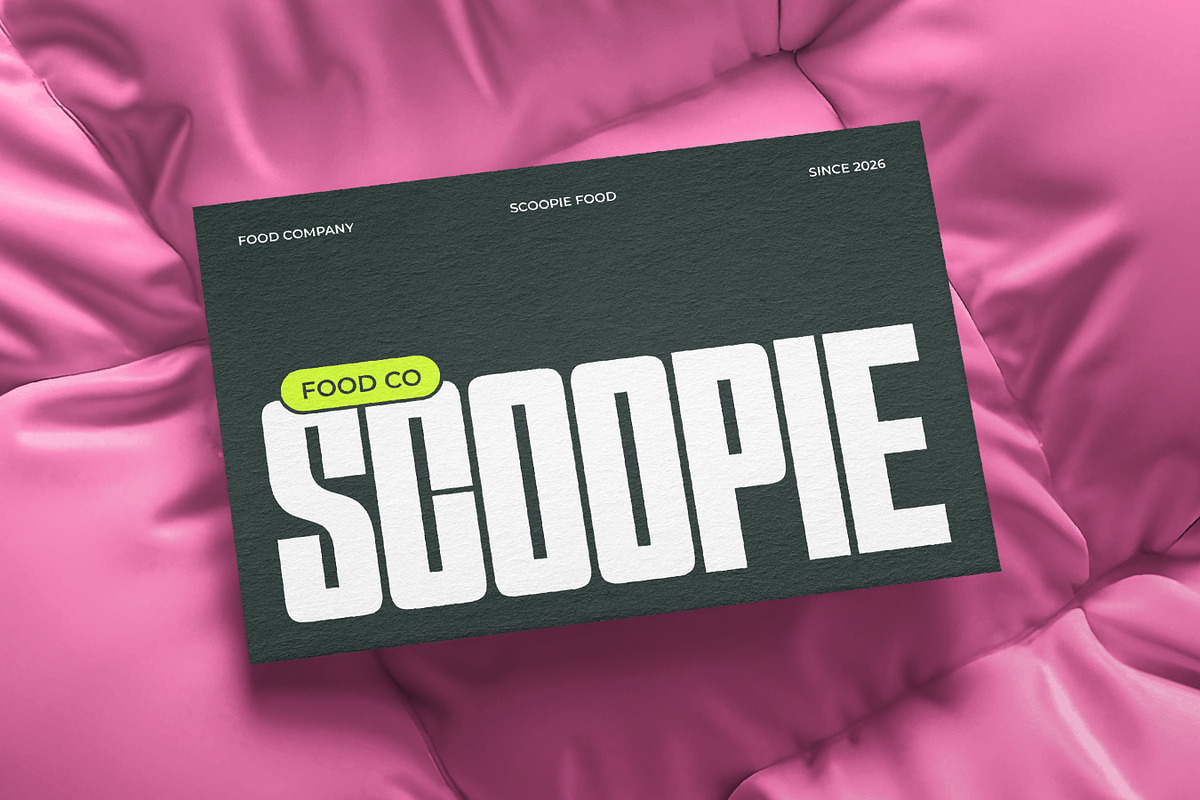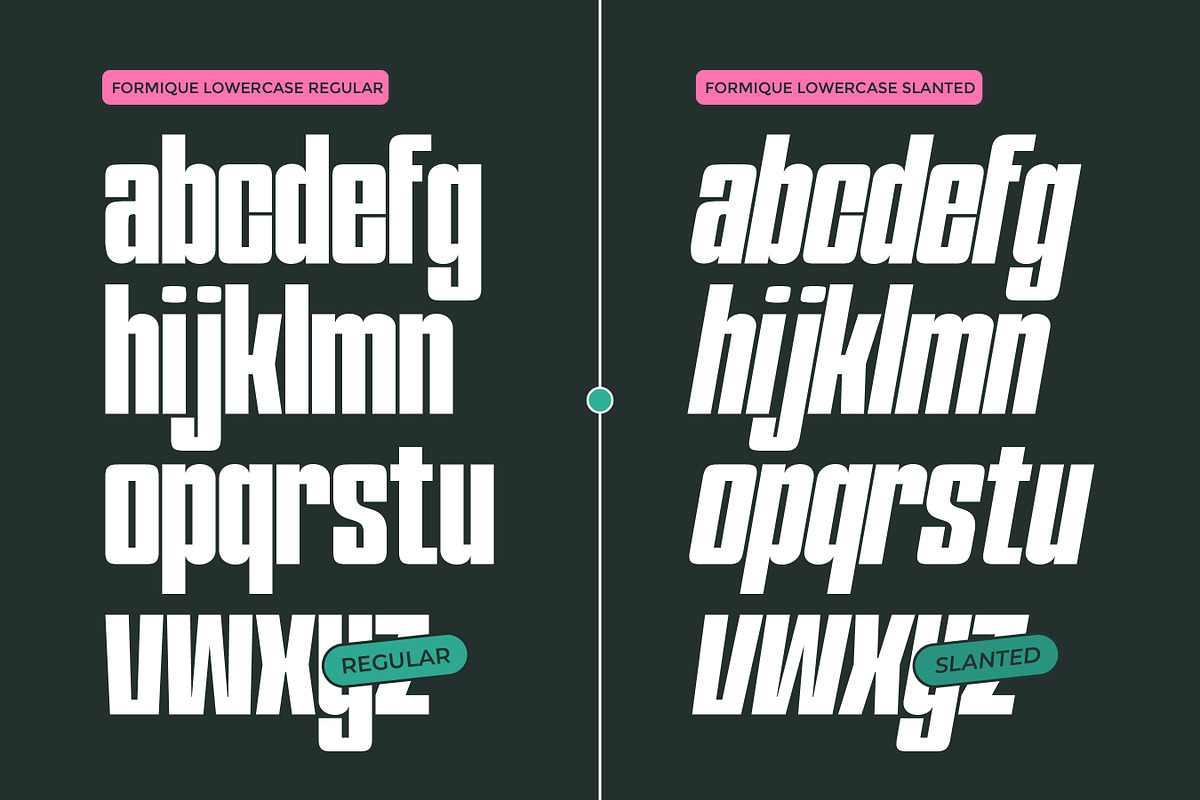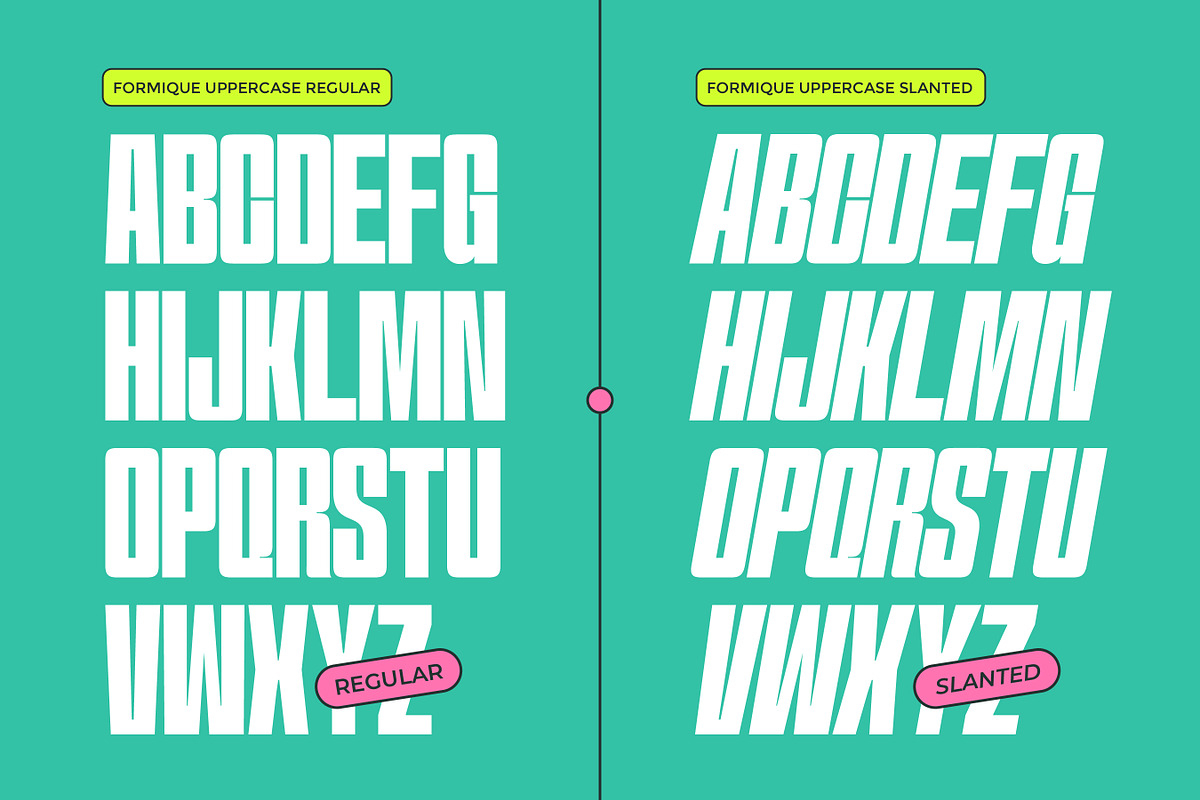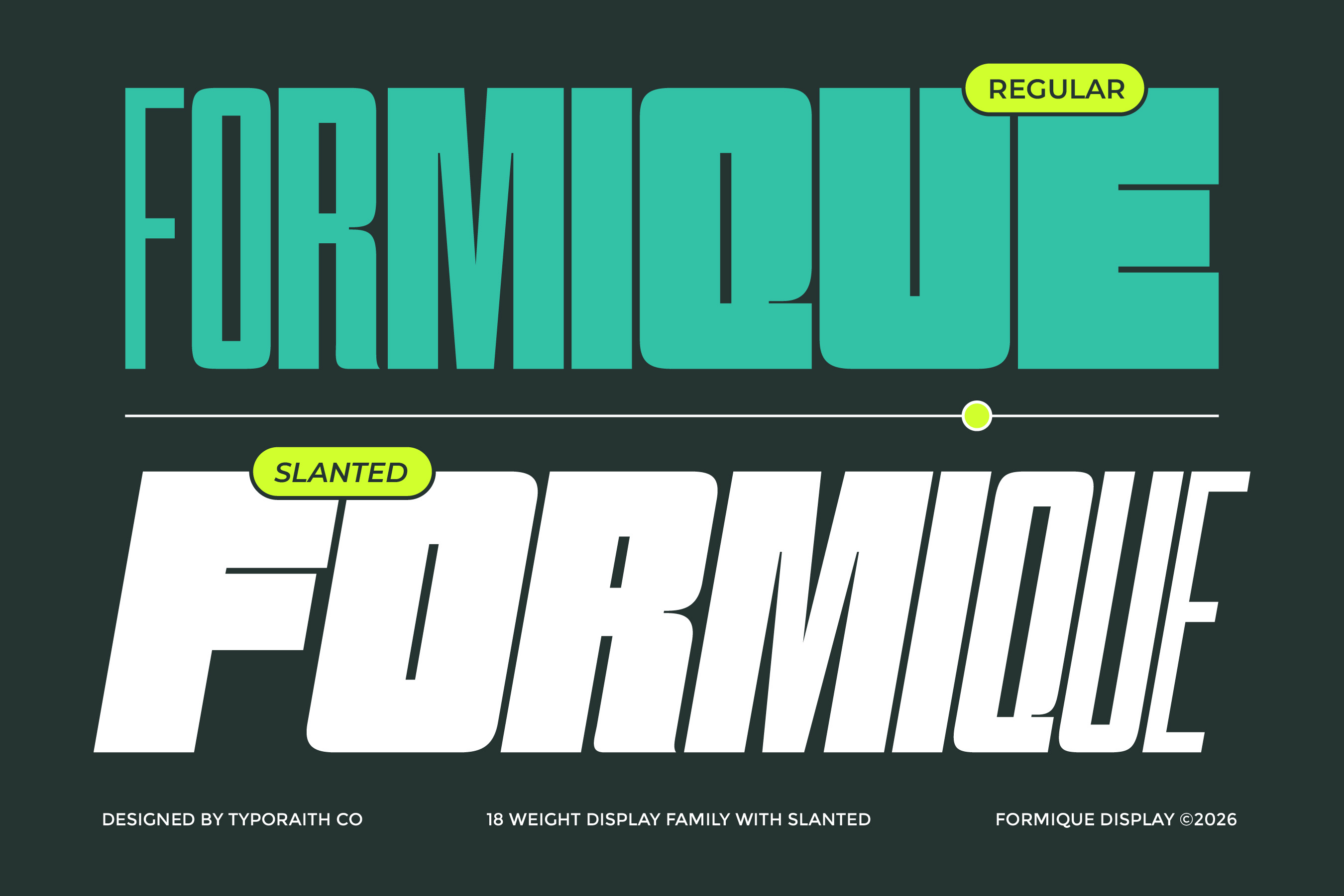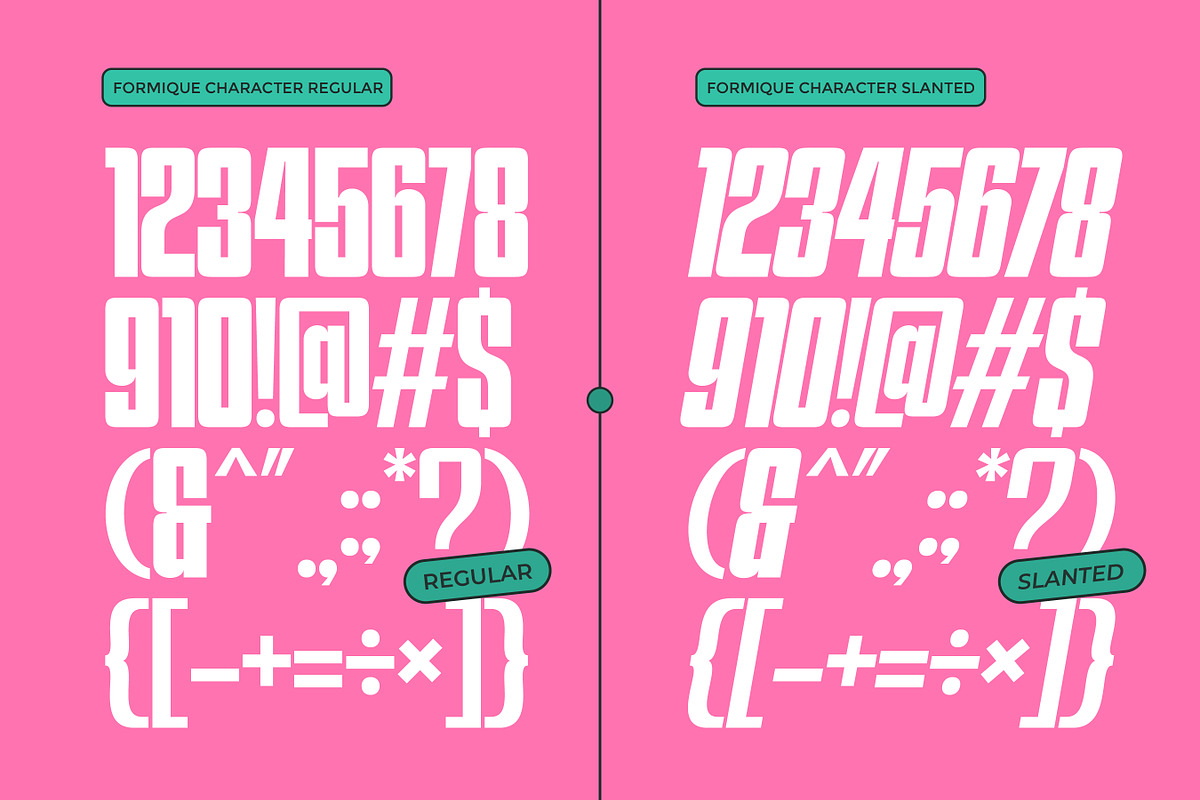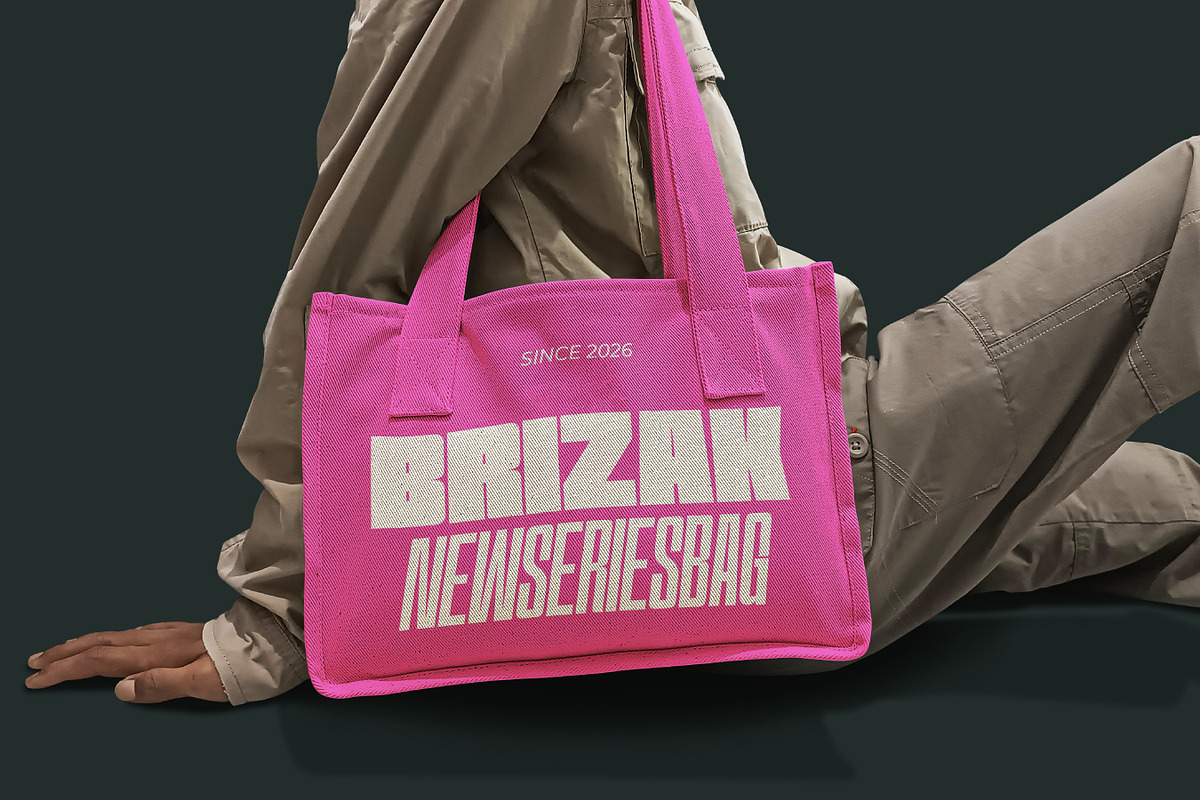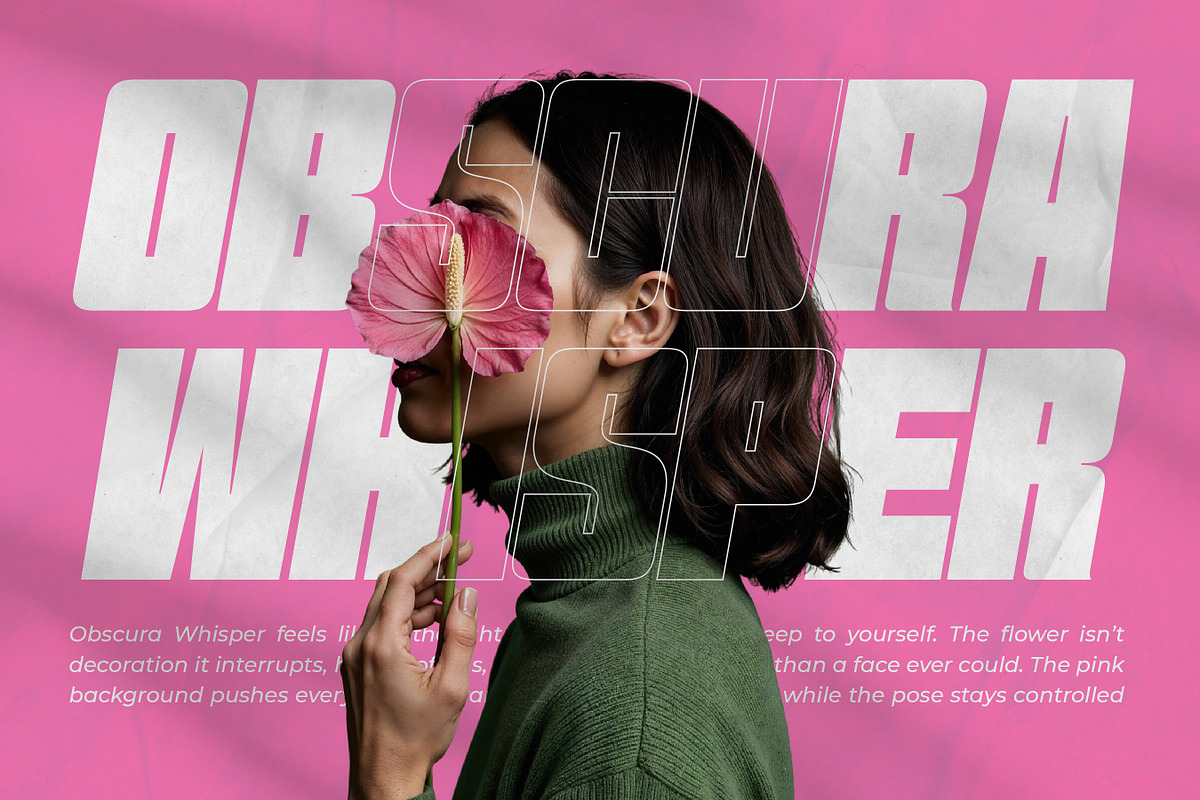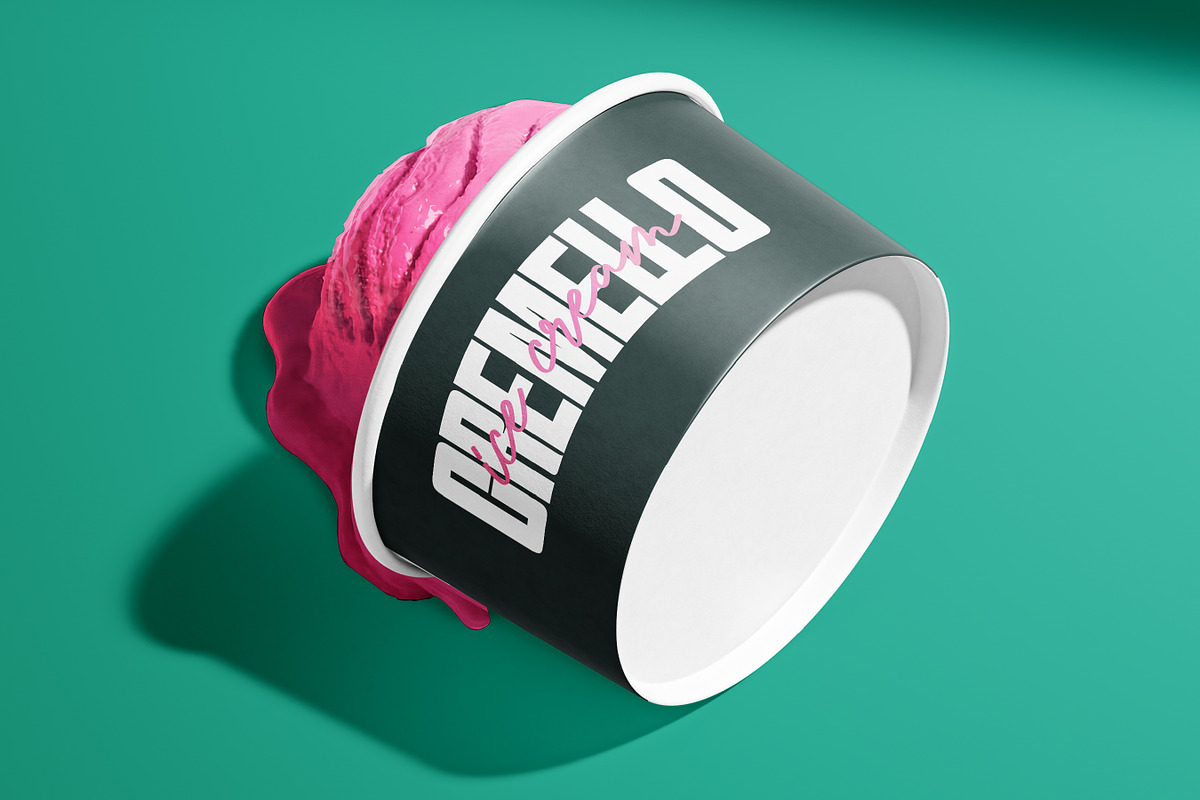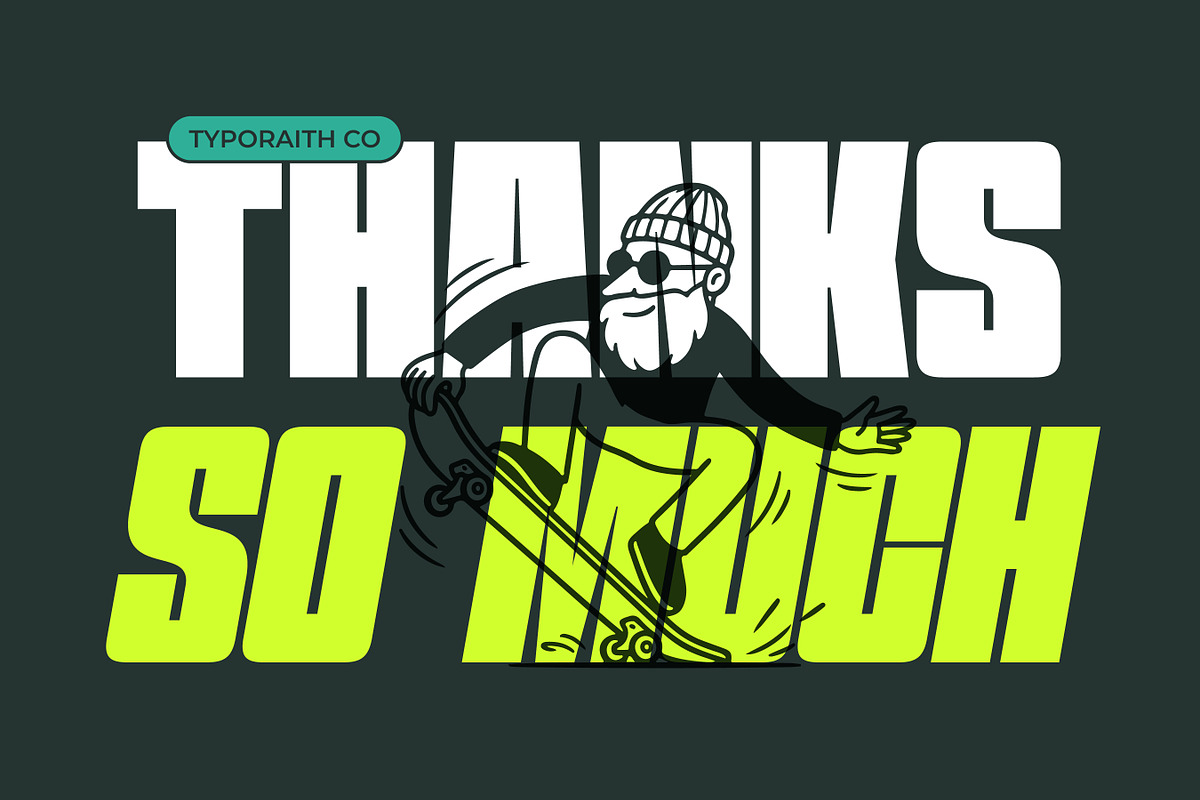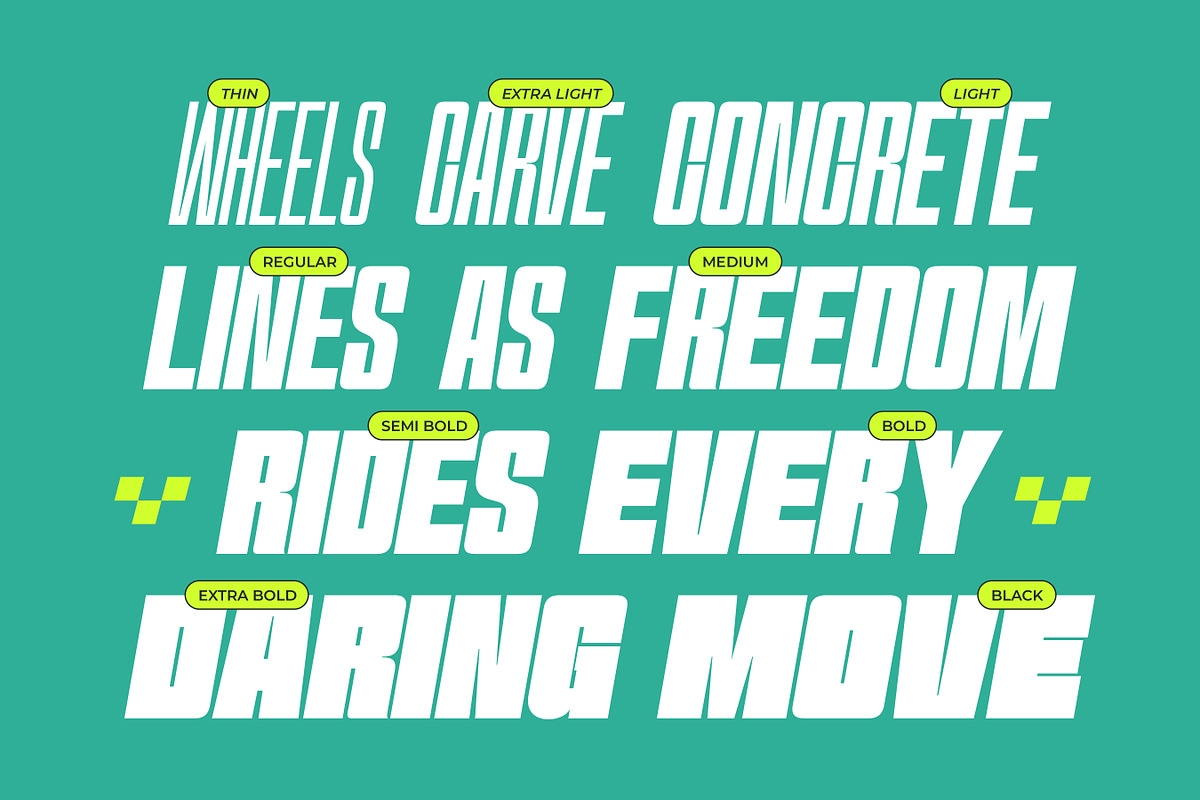
Formique Font Family
Formique is a modern display font designed to deliver a strong, bold, and impactful visual presence. With its wide, solid, and geometric letterforms, this typeface is perfect for designs that need to stand out and make a statement.
Featuring 18 font styles, including both regular and slanted versions, Formique offers high versatility for a wide range of creative explorations—from clean and structured layouts to dynamic and energetic compositions.
Carefully crafted with balanced proportions and consistent spacing, Formique ensures excellent readability while maintaining a powerful aesthetic, making it ideal for headlines and large-scale typography.
18 Font Styles (Regular & Slanted)
Strong, Bold & Wide Letterforms
Modern Geometric Design
Clean & Consistent Spacing
Uppercase, Lowercase & Numerals
Branding, logos, posters, editorial design, packaging, social media, sports graphics, and other creative projects that require a bold and striking look.
Formique is the perfect choice for designers who want to create modern, powerful, and standout visuals.